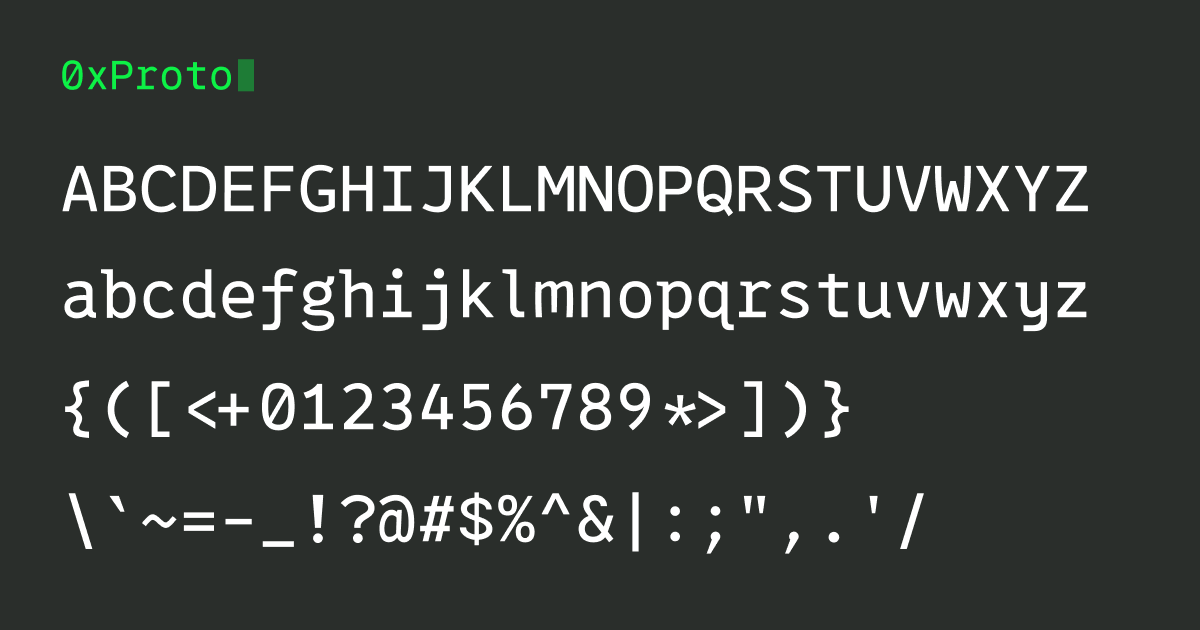
0xProto is a programming font focused on source code legibility.
Key Features
- Clear differentiation – when it comes to programming fonts, legibility is paramount, particularly the clear differentiation of each letter. Maintaining clarity in coding is critical as it minimizes ambiguity and helps prevent errors that could lead to software bugs. 0xProto is a cohesive font ingeniously designed to enhance differentiation between similar-looking letters.
- Legibility in small font size.
- More whitespace
- Ligatures that dont’t deform shape